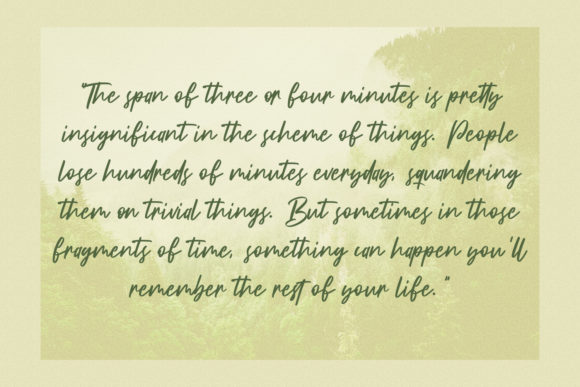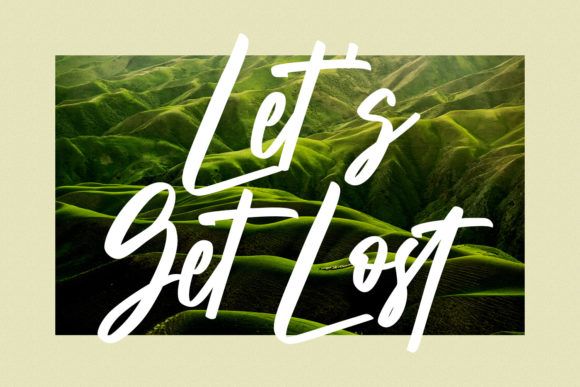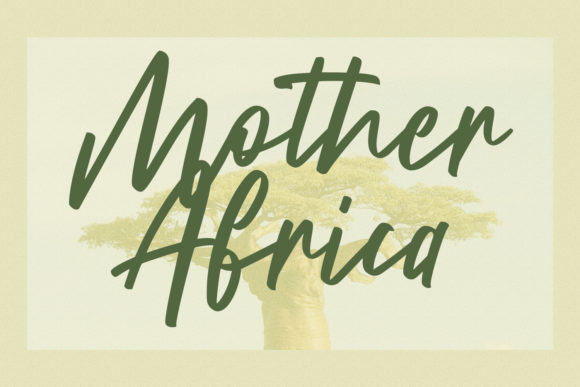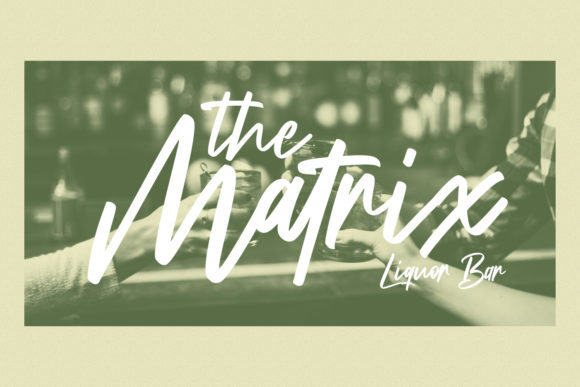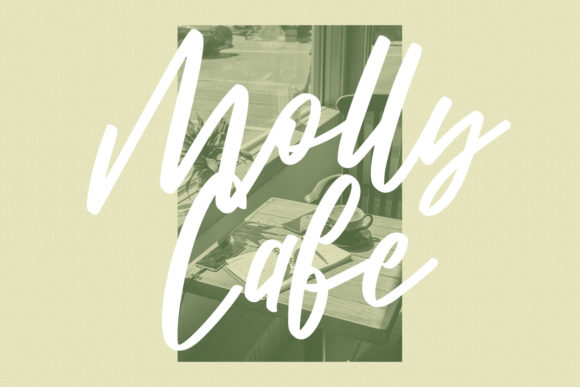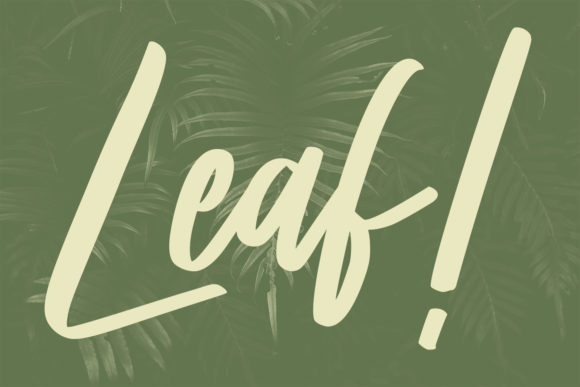
Introduction to Hidestix Font
Have you ever found yourself stuck on a creative project, desperately searching for the perfect design element to bring your vision to life? The blank page stares back at you, taunting you with its emptiness, until you stumble upon that one elusive font that sets your imagination ablaze. For designers, this moment is a game-changer – and that’s exactly what the Hidestix Font promises to deliver.
This high-quality design resource boasts a unique blend of style and sophistication, making it an instant favorite among creative professionals. With its medium contrast strokes, fun characters, ligatures, and alternates, the Hidestix Font is more than just a pretty face – it’s a versatile tool that can elevate any project to new heights.
Key Features of Hidestix Font
- Unique, modern font style with a transparent background, perfect for layered designs
- Includes a wide range of characters, including uppercase and lowercase letters, numbers, and symbols
- Perfect for use in graphic design, digital art, and other creative endeavors
Honest Review: Hidestix Font
I recently came across the Hidestix Font, a high-quality design resource that has caught my attention. As a designer, I’m always on the lookout for new fonts to elevate my creative projects. In this review, I’ll share my honest thoughts on what works well and what could be improved.
- High-quality design: The Hidestix Font is well-crafted, with smooth lines and a clear, readable font.
- Limited character set: The font only includes a limited character set, which may not be suitable for complex projects.
- Lack of customization options: The font does not offer any customization options, such as font size or color.
Overall, the Hidestix Font is a great addition to any designer’s toolkit. While it has its limitations, its high-quality design and free download make it an excellent resource for creative projects. With a little creativity, this font can help elevate your designs to the next level.
Tips for Getting the Most Out of Hidestix Font
To get the most out of the Hidestix Font, use it on a transparent background to create a unique and eye-catching design. You can also pair it with other fonts to create a visually appealing typography.
The Hidestix Font is ideal for creative projects that require a modern and sleek look. Use it for branding, logos, posters, and other marketing materials to give them a professional and polished appearance.